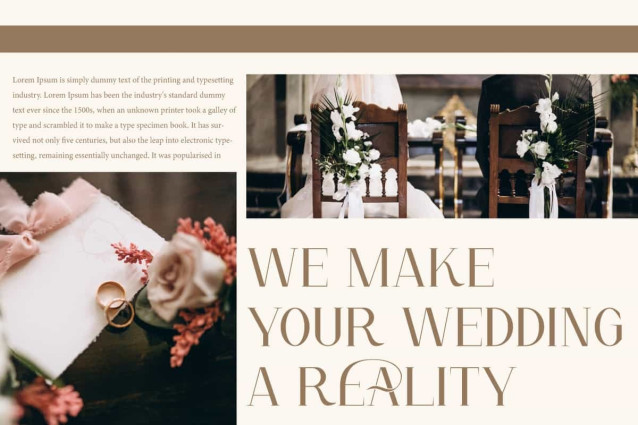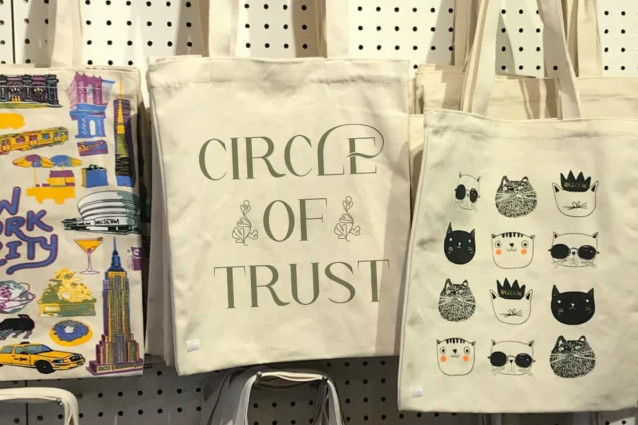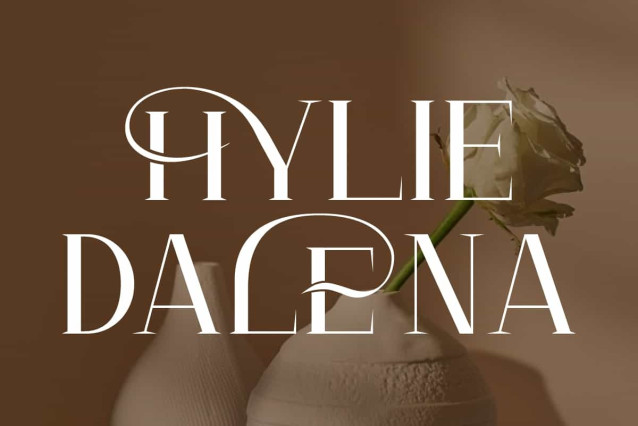
Hylie Dalena Font
Hylie Dalena Font is a serif font with an artistic touch that combines classic elegance and modern style. This font will be perfect for any projects, can be used for advertisemnt, brand image, custom design, invitation, label, layout design, quotes, stationery, template design, website, and more!
Hylie Dalena Font includes full set of Uppercase and Lowercase Basic Characters, Numerals, Punctuation, Symbol, and Ligature character. The letters have distinctive decorative elements, such as smooth curves and a thick-thin combination. Making it a perfect choice for a variety of fields, such as accessories and jewelry, beauty product, event or wedding organizer, fashion, florist, furniture, real estate, spa salon, etc.